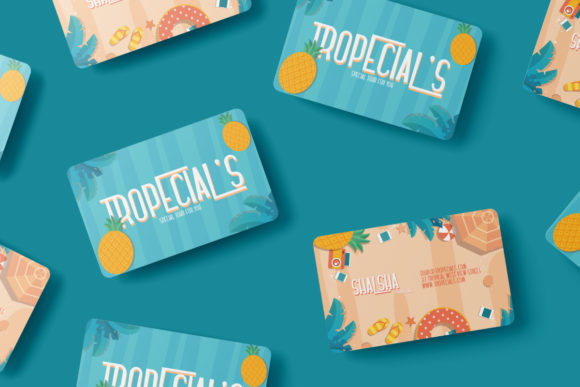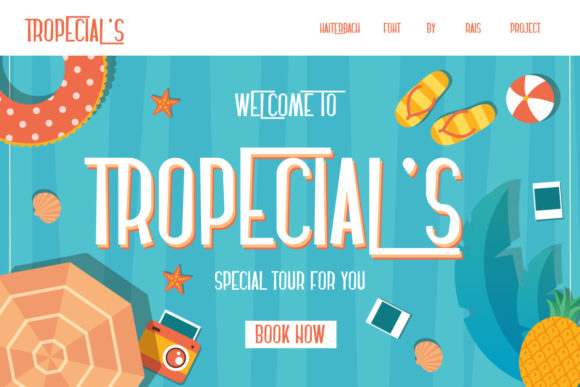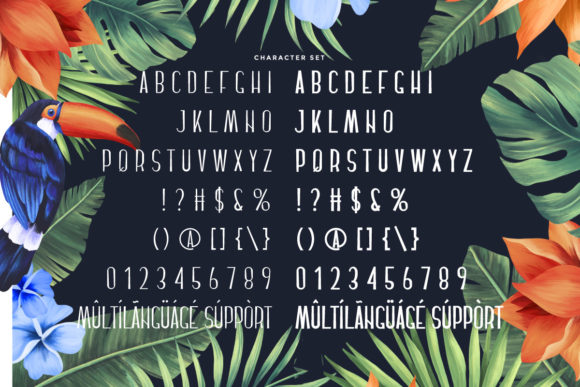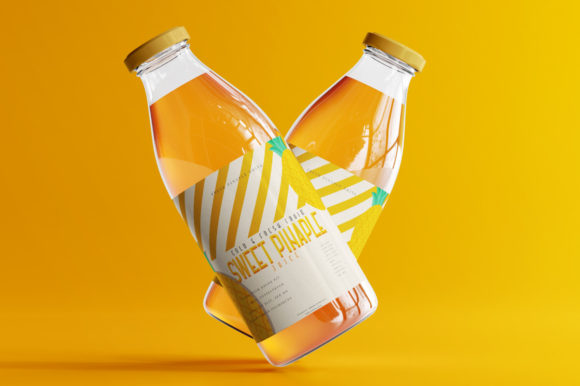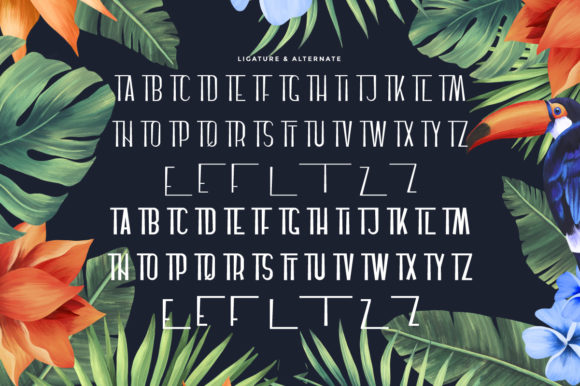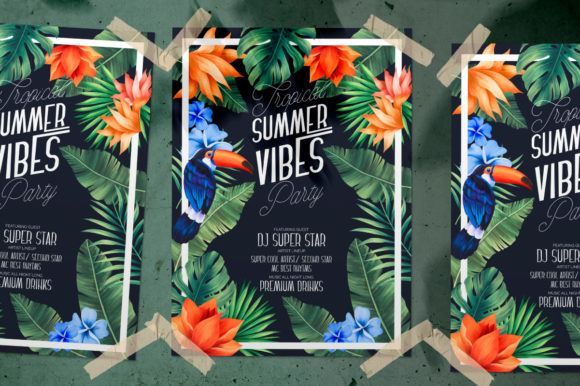
The Hunt for the Perfect Font: Discovering Haiterbach
I’ll never forget the summer I spent working on a branding project for a beachwear client. I was on a mission to find the perfect font – something fresh, modern, and effortlessly cool. As I scrolled through font after font, I couldn’t shake the feeling that something was missing. That was until I stumbled upon Haiterbach, a game-changing sans serif font that captured the essence of summer vibes.
First Impressions: A Modern Sans Serif with a Twist
Haiterbach is more than just a font – it’s an experience. With its exclusive special characters, modern shapes, and various alternates, this font is sure to elevate any design project. The balance of hard lines and smooth curves gives Haiterbach a unique personality that’s both sleek and approachable. Whether you’re working on a blog, logo branding, business card, poster, or product design, Haiterbach is an excellent choice.
What I Love About Haiterbach ✨
- ✅ Fresh and modern style with exclusive letterforms
- ✅ Two different weights for added versatility
- ✅ Works great in various design applications, from blogs to product designs
- ⚠️ Some users may find the font’s uniqueness takes getting used to
- ⚠️ Limited availability of certain characters in certain platforms
The Story Behind Haiterbach: A Designer’s Inspiration
While the true story behind Haiterbach remains a mystery, it’s easy to imagine a designer inspired by the carefree spirit of summer. Perhaps they spent hours lounging on the beach, observing the way the light danced across the waves, and translating those moments into a font that captures the essence of the season.
| What makes Haiterbach unique? | Haiterbach’s exclusive special characters, modern shapes, and various alternates set it apart from other sans serif fonts. |
| Is Haiterbach suitable for body text? | While Haiterbach is primarily designed for display purposes, its clean and legible design makes it suitable for short blocks of body text. |
| Is Haiterbach available in multiple weights? | Yes, Haiterbach comes in two different weights, providing added versatility for designers. |